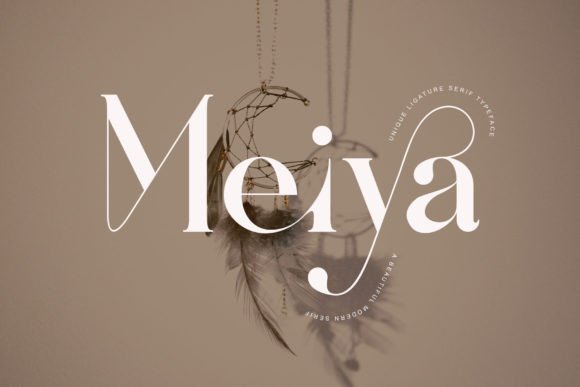
Introducing the Meiya Font, the ultimate choice for those seeking elegance, style, and a touch of modernity in their designs. This elegant and classy serif typeface is a perfect blend of nostalgia and contemporary charm, making it an ideal choice for logos, magazines, and social media.
Created by the talented yaqublekker, Meiya Font is meticulously designed to captivate the eyes and evoke emotions. Its timeless appeal makes it perfect for any project that requires a touch of sophistication and class. Whether you're designing a logo for a high-end brand or crafting a magazine layout that exudes luxury, Meiya Font will effortlessly elevate your design to new heights.
With Meiya Font, you no longer have to spend endless hours searching for the perfect font combination. It comes pre-matched and ready to be used together, saving you time and effort. The harmonious pairing of Meiya Font's characters ensures a cohesive and visually pleasing result, making your designs stand out from the competition.
Imagine the impact of using Meiya Font in your next project. Picture a sleek, modern website that effortlessly captures attention and leaves a lasting impression on your visitors. With its versatility and adaptability, this font is perfect for a wide range of design applications. From website headers to social media graphics, Meiya Font will transform your design into a visual masterpiece.
But Meiya Font is more than just a beautiful typeface. It's a reflection of your brand's values and aspirations. Its elegance, style, and chic appeal convey a sense of luxury and exclusivity, resonating with your target audience and establishing a strong brand identity.